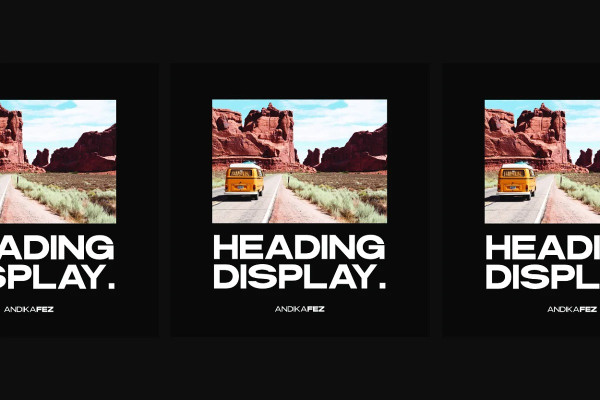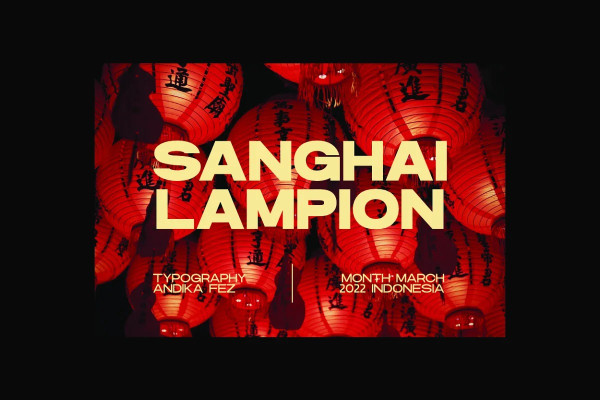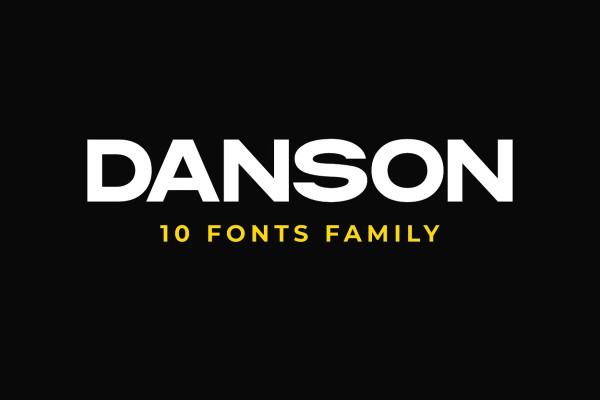
Danson Font
Danson Font is made with great taste. It is very suitable to include in your project such as print, advertisement, campaign, poster, book title, etc.